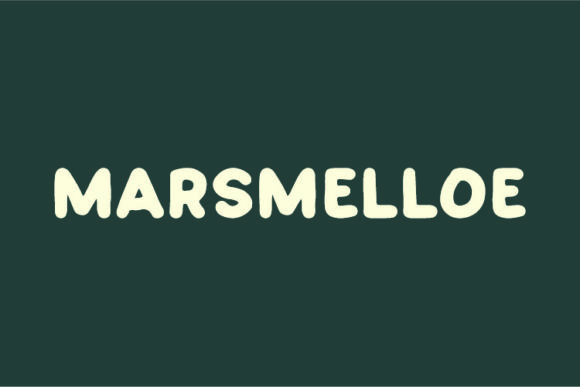
Step into a world of pure delight and enchantment with Marsmelloe Font, the ultimate font for baby onesies. Immerse yourself in a symphony of joy and sweetness as you explore the boundless creativity that awaits.
Crafted meticulously by the talented Hanna Bie, Marsmelloe Font is a display font that captures the essence of innocence, wonder, and boundless joy. With its playful curves and cheerful strokes, this font will transform your baby's onesies into captivating canvases of imagination.
Unleash your creativity and let your imagination soar as you explore the endless possibilities of Marsmelloe Font. Design onesies that are as unique and special as your little one. From playful patterns to whimsical illustrations, the possibilities are limitless.
Capture those precious moments of laughter, joy, and discovery with onesies that speak volumes. Whether it's a special occasion or a simple day at home, Marsmelloe Font will add a touch of magic to every outfit.
Don't miss out on the chance to create onesies that are not only adorable but also carry a story of love and happiness. Let Marsmelloe Font be your guide as you embark on a creative journey that will fill your baby's world with joy and wonder.